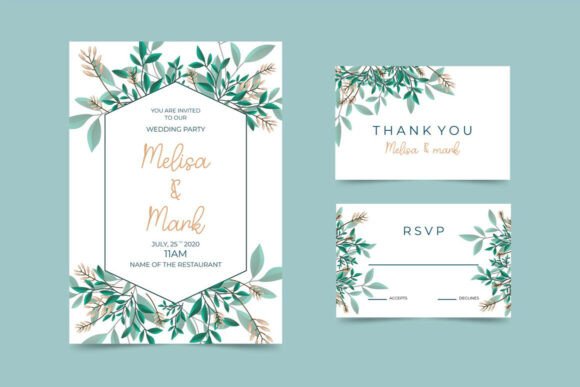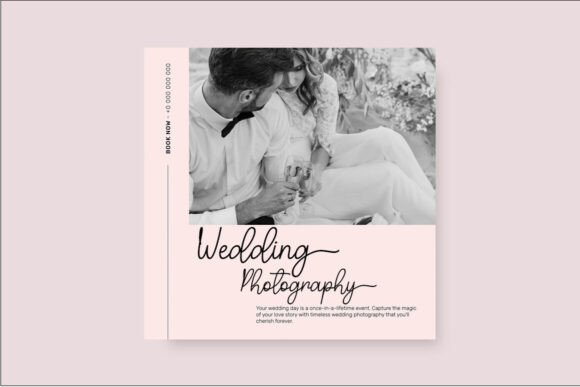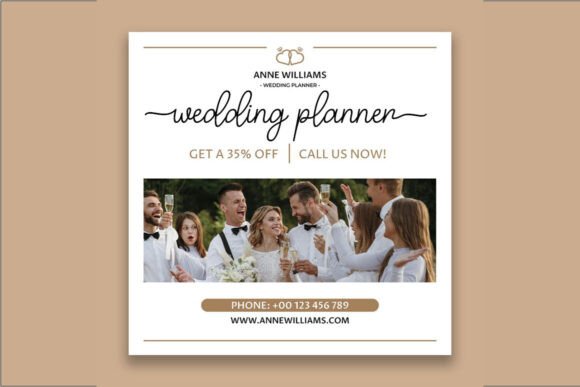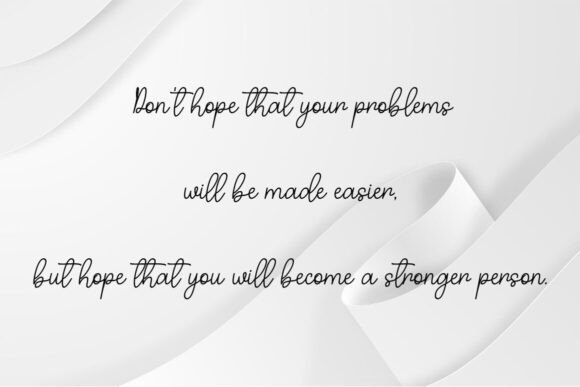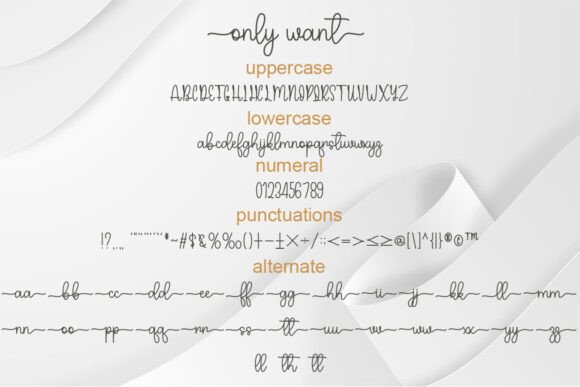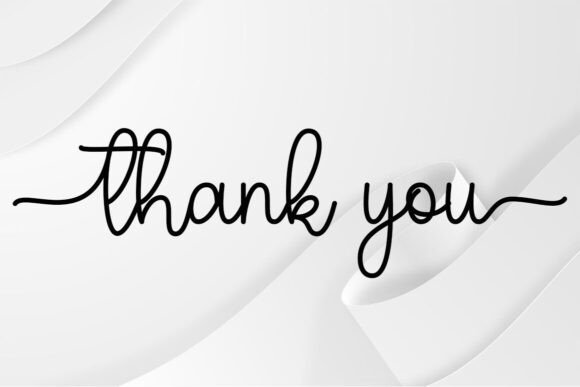
Introduction to Only Want Font
Only Want is an enchanting handwritten font perfect for logos, branding, quotes, clothing, tote bags, business cards, websites, and many more.
Fall in love with it, and let it take your projects to the highest level This font is PUA encoded which means you can access all the glyphs and ligatures with ease.